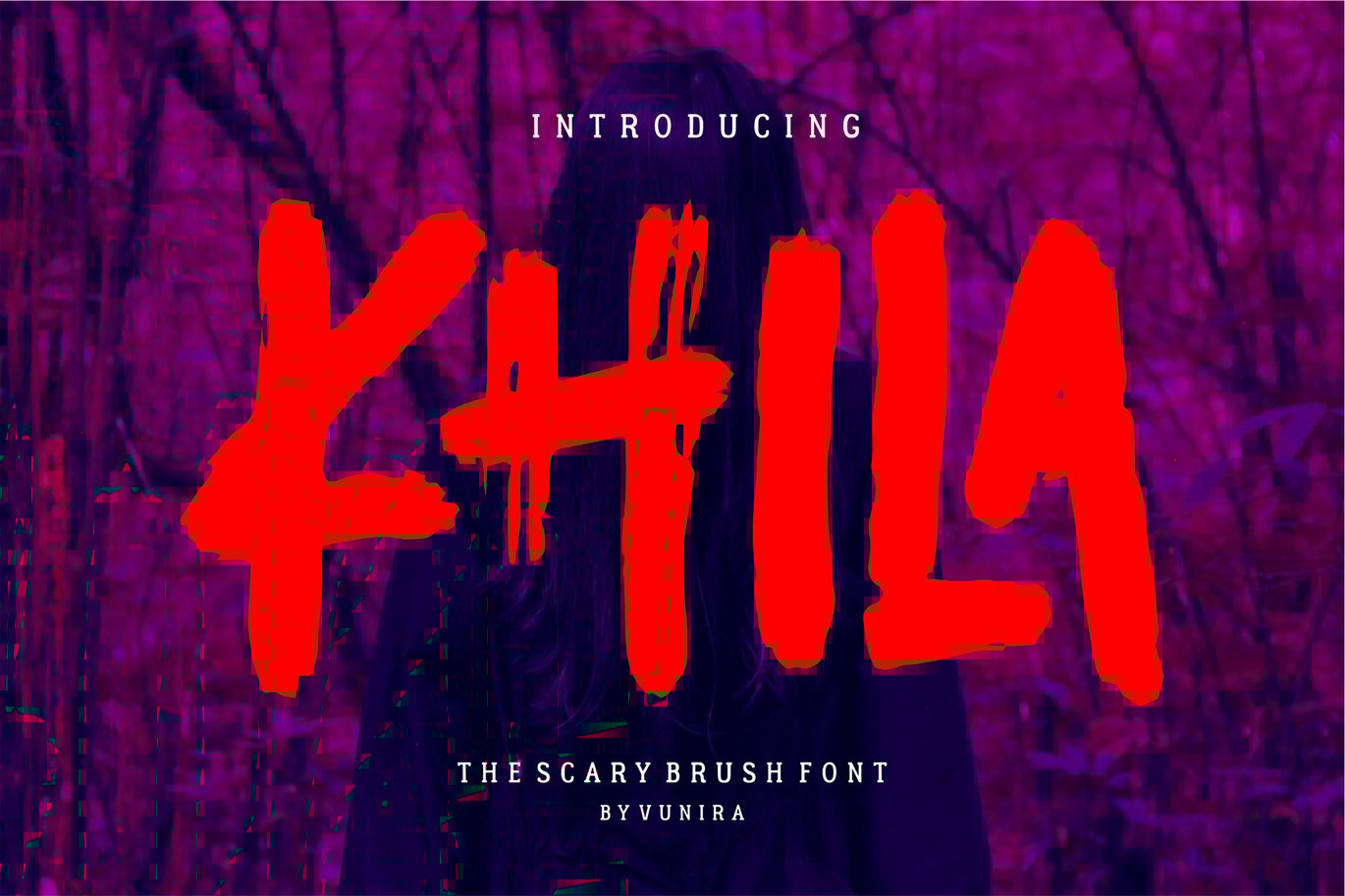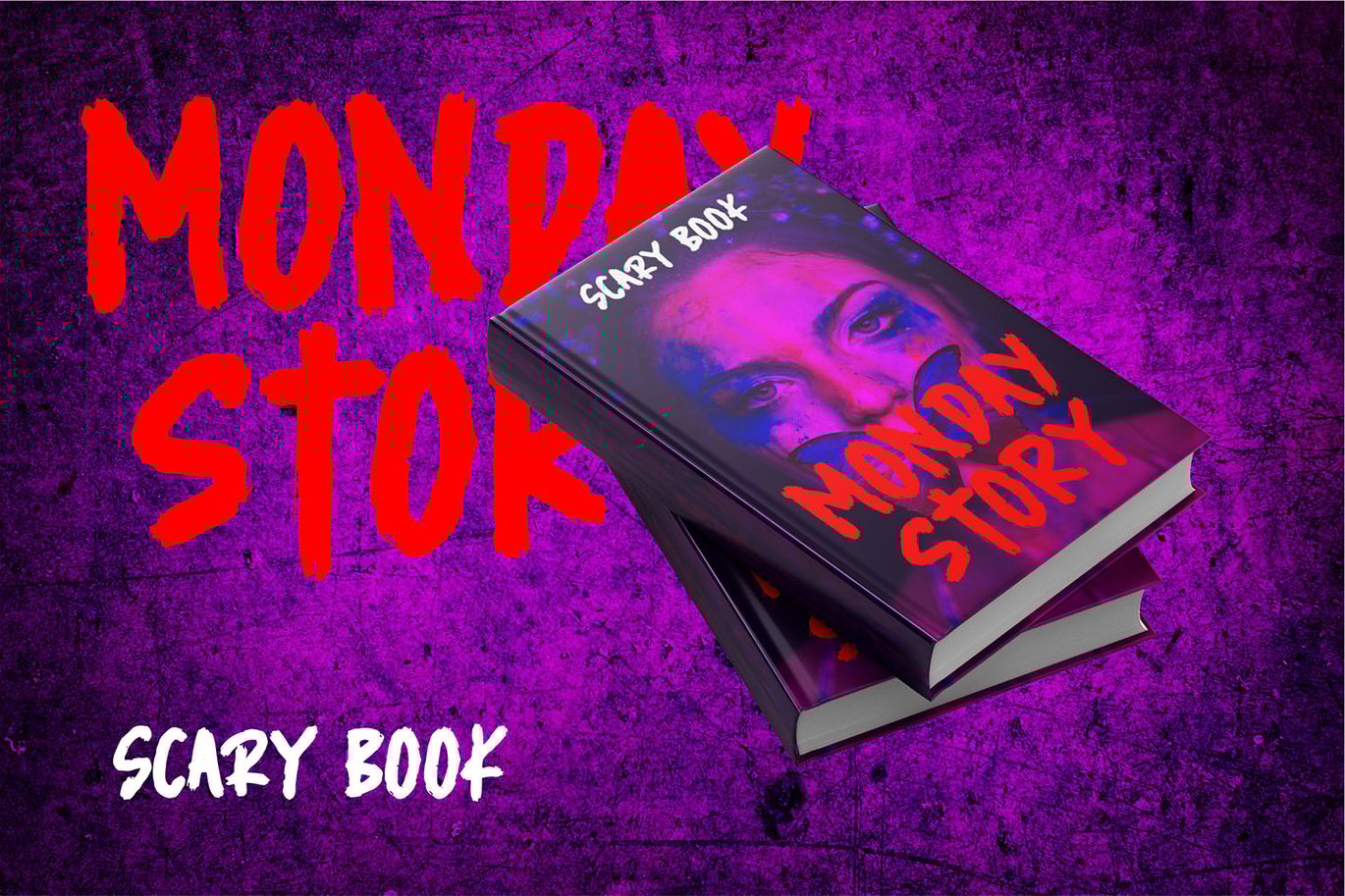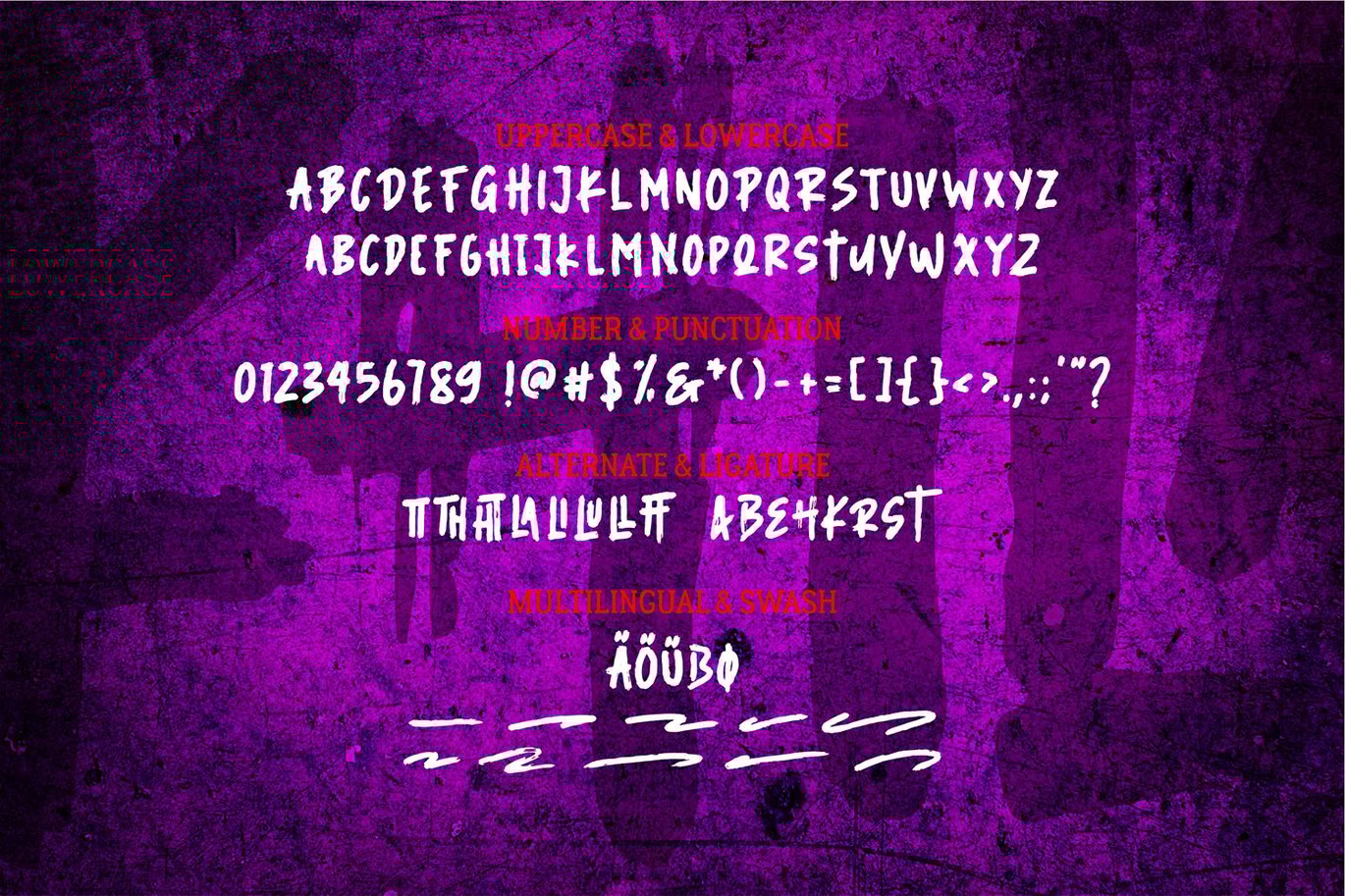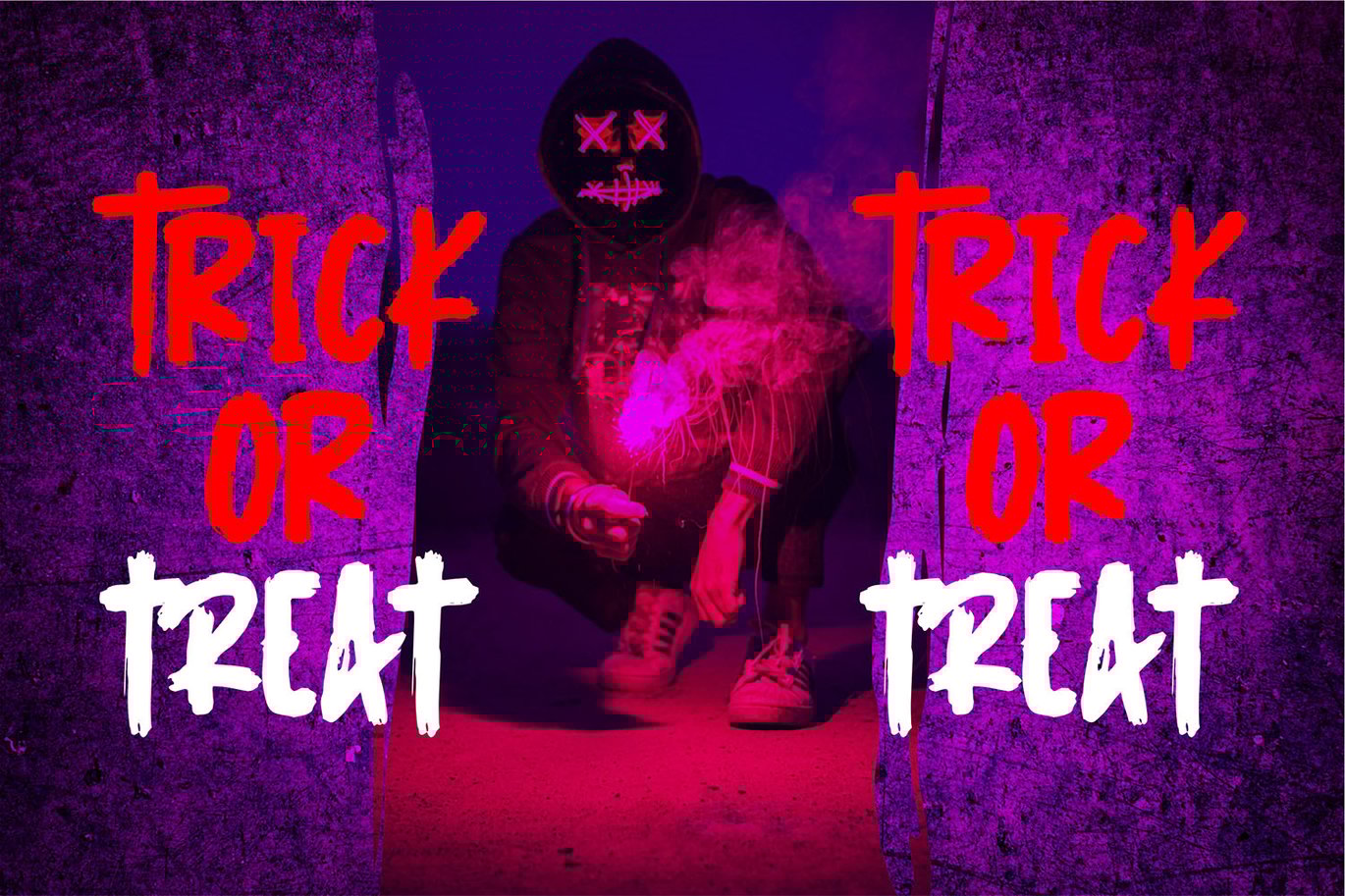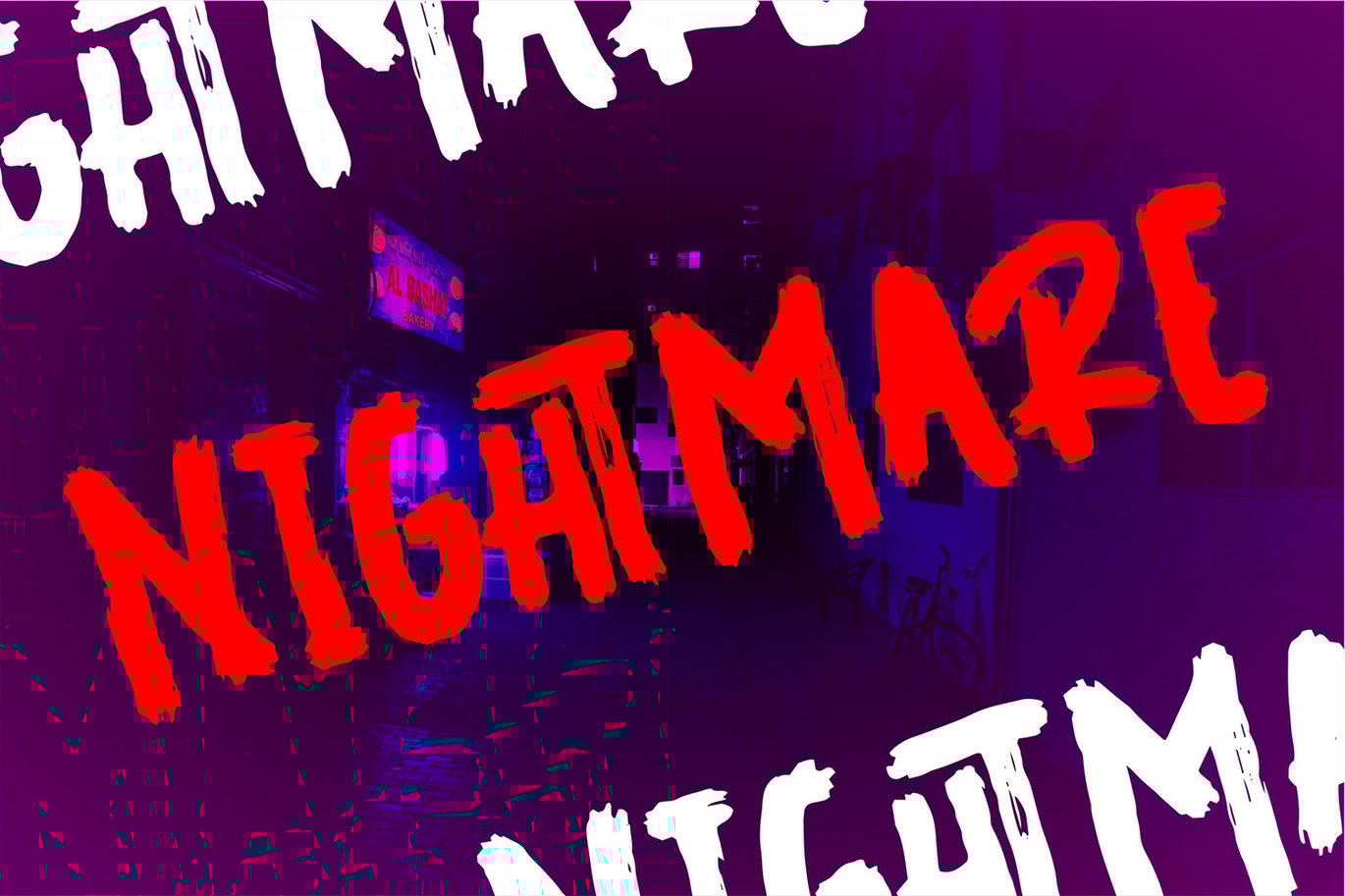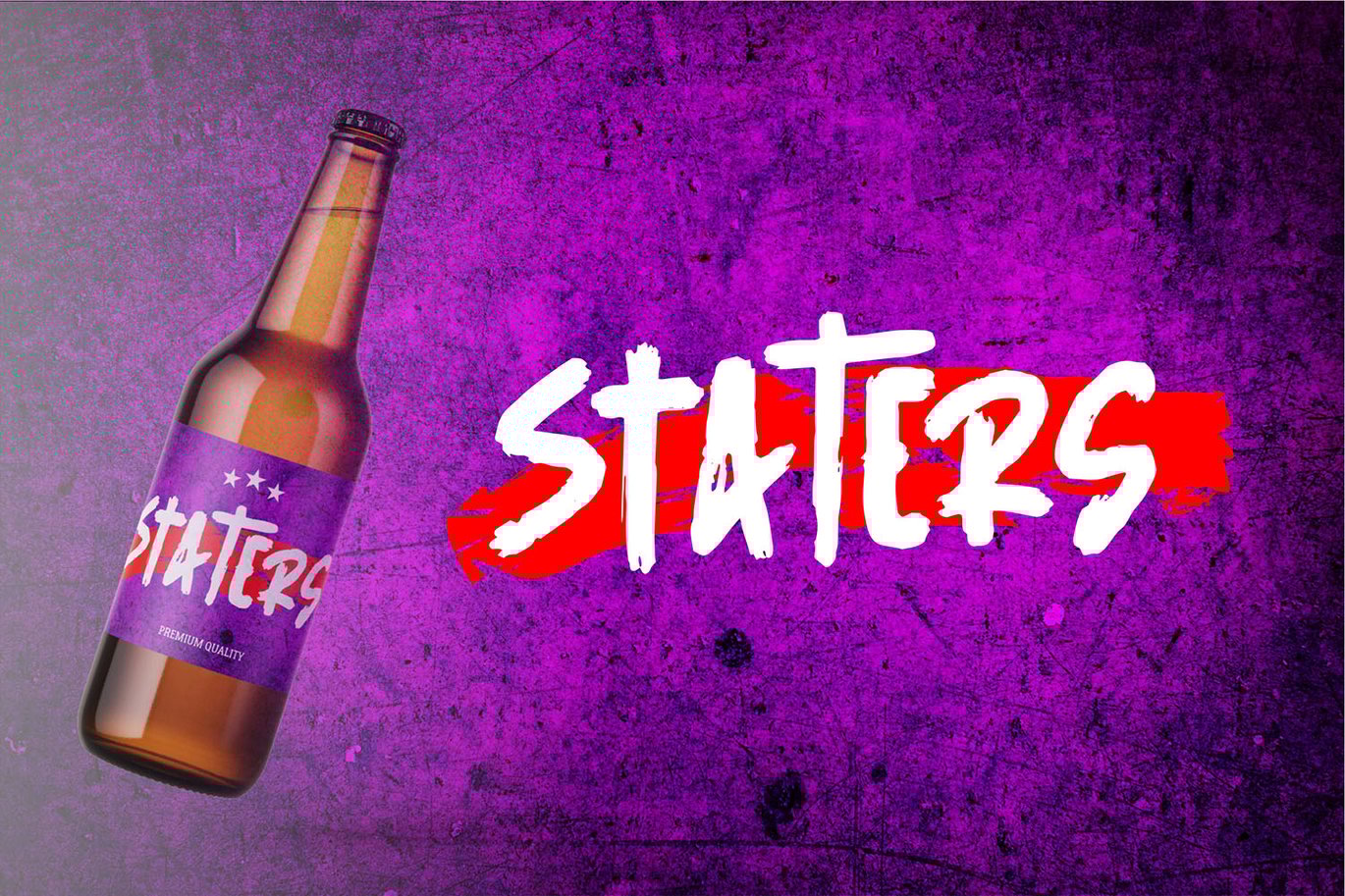
Khila | The Scary Brush Font
Khila | The Scary Brush Font with a calligraphy style, So beautiful on invitation like greeting cards, branding materials, business cards, quotes, posters, and more!